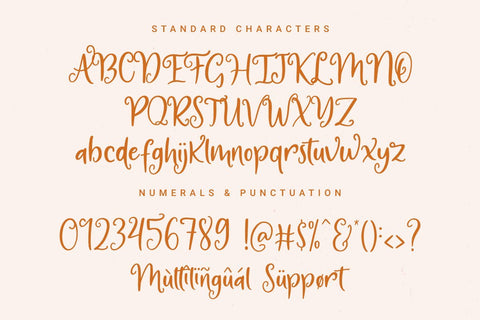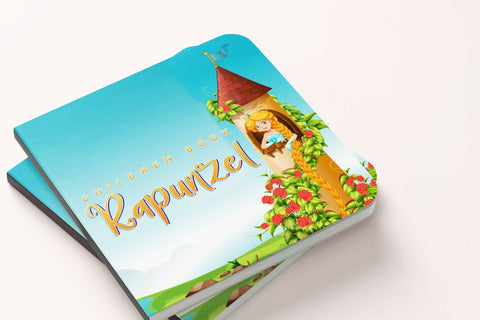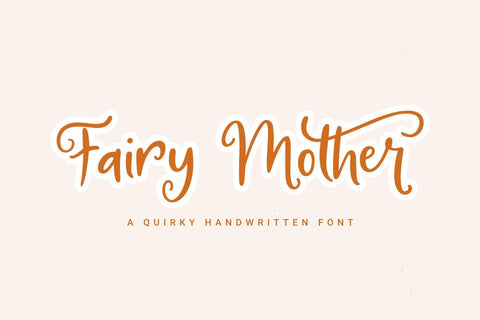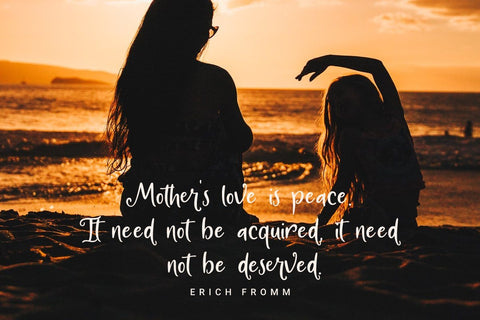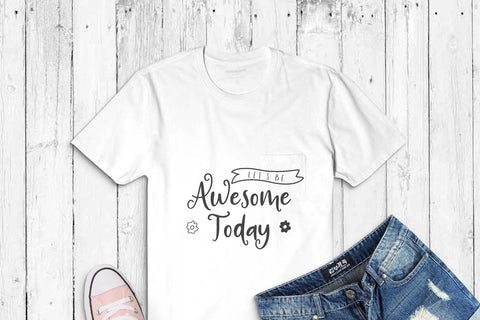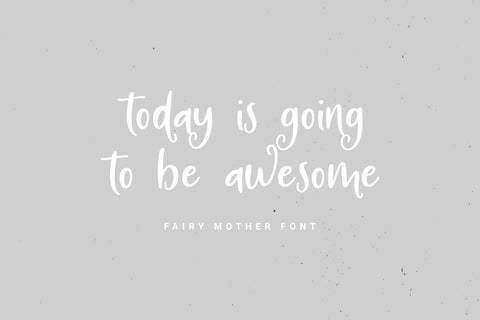
Fairy Mother | Quirky Font
Introducing Fairy Mother is a quirky and curved font. This font has characters ligature (er, tt) and alternate (t, M, N). Fairy Mother is perfect for branding, crafting, svg, SVG design, quote, film, poster, web, and much more.